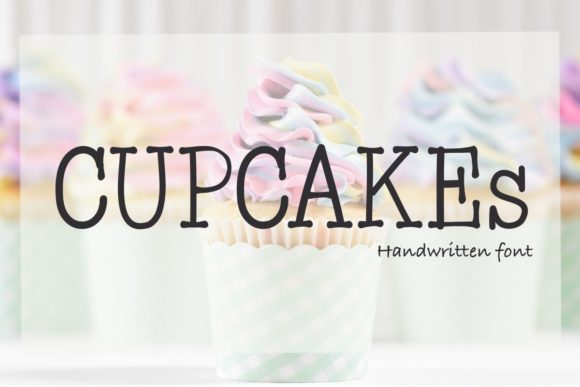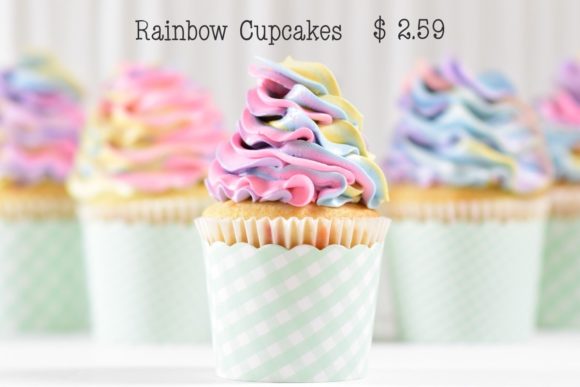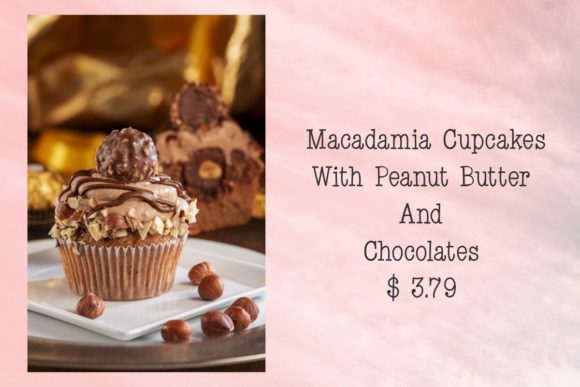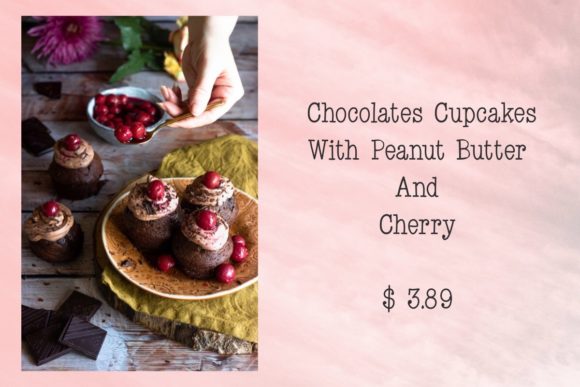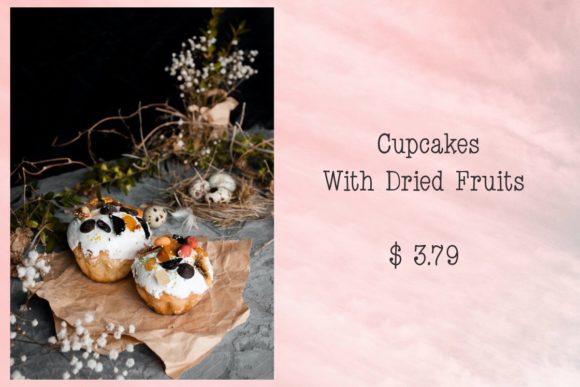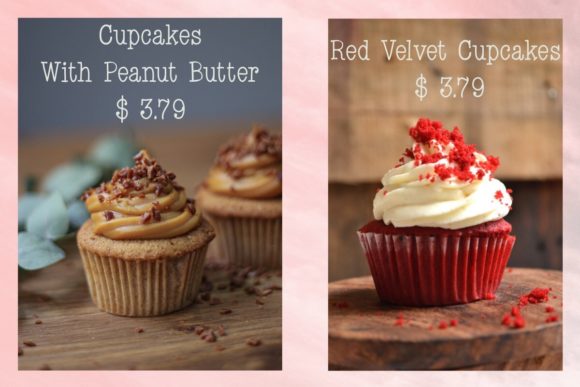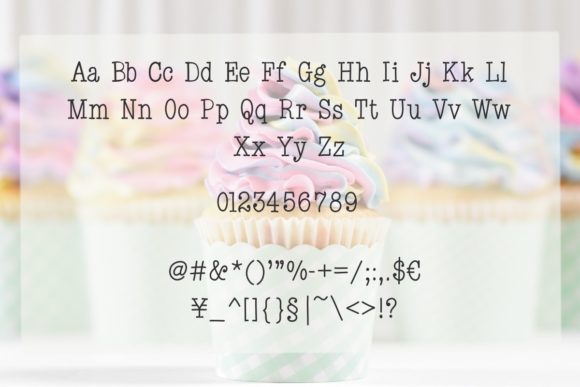
Cupcakes
Cupcakes: A Cool and Versatile Slab Serif Font
Cupcakes is a distinctive slab serif font that combines coolness with versatility. This typeface is designed to be a wonderful asset to your font library, with the potential to enhance any creation regardless of the topic.
Key Features of Cupcakes
• Cool Design: Features trendy letterforms that resonate with modern design trends.
• Slab Serif Structure: Incorporates the characteristic thick, rectangular serifs typical of slab serif fonts.
• Versatile Application: Suitable for a wide range of projects, from print to digital media.
• Enhancement Quality: Designed to elevate and improve the visual appeal of any creative project.
• Adaptable Style: Flexible enough to suit various design contexts and themes.
Ideal Uses for Cupcakes
Cupcakes’ unique characteristics make it particularly well-suited for:
• Branding and logo design
• Poster and advertisement layouts
• Website headers and digital content
• Packaging design for various products
• Social media graphics and content
When incorporating Cupcakes into your designs, consider the following tips:
• Use for both headlines and short blocks of text to showcase its cool and versatile style
• Experiment with different sizes to highlight the font’s unique details
• Take advantage of its adaptability across various themes and styles in your projects
Cupcakes is an excellent choice for designers looking to add a cool and versatile slab serif font to their typographic toolkit. Its ability to enhance various design projects makes it stand out in the world of typography. Whether you’re working on logo designs, creating layouts for advertisements, or developing content for any topic, Cupcakes offers the perfect blend of coolness and adaptability.
Add Cupcakes to your font library and explore how it can elevate your designs with its cool and versatile style. From eye-catching headlines to engaging branding elements, this font provides the tools to create impactful and memorable typography that resonates with audiences seeking a modern aesthetic. It’s versatile enough to be used in various contexts, from vintage-inspired designs with a contemporary twist to playful layouts that need a touch of sophistication.
Whether you’re creating a magical and mysterious atmosphere or aiming for a more thoughtful and introspective mood in your designs, Cupcakes can adapt to your needs. Its flexibility allows it to work well in both rustic, vintage-style projects and holiday-themed designs that require a modern update. For those looking to add a touch of nostalgia with a contemporary feel, this font can even complement vintage Christmas-inspired creations with a unique, cool twist.